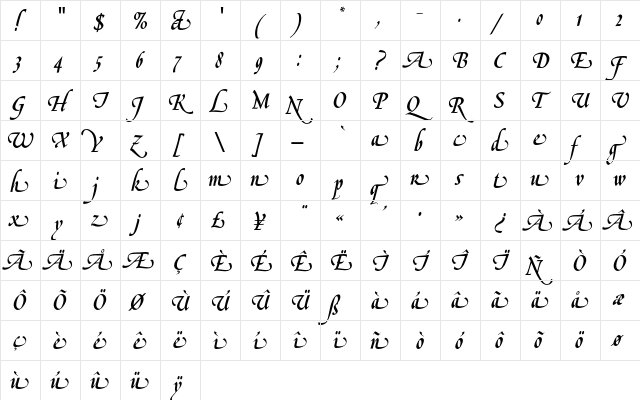
LeGriffeEF-AlternateTwo Regular
Design Context for LeGriffeEF-AlternateTwo Typeface
LeGriffeEF-AlternateTwo is a composed and adaptable typeface that performs quietly and consistently across a wide range of design contexts.